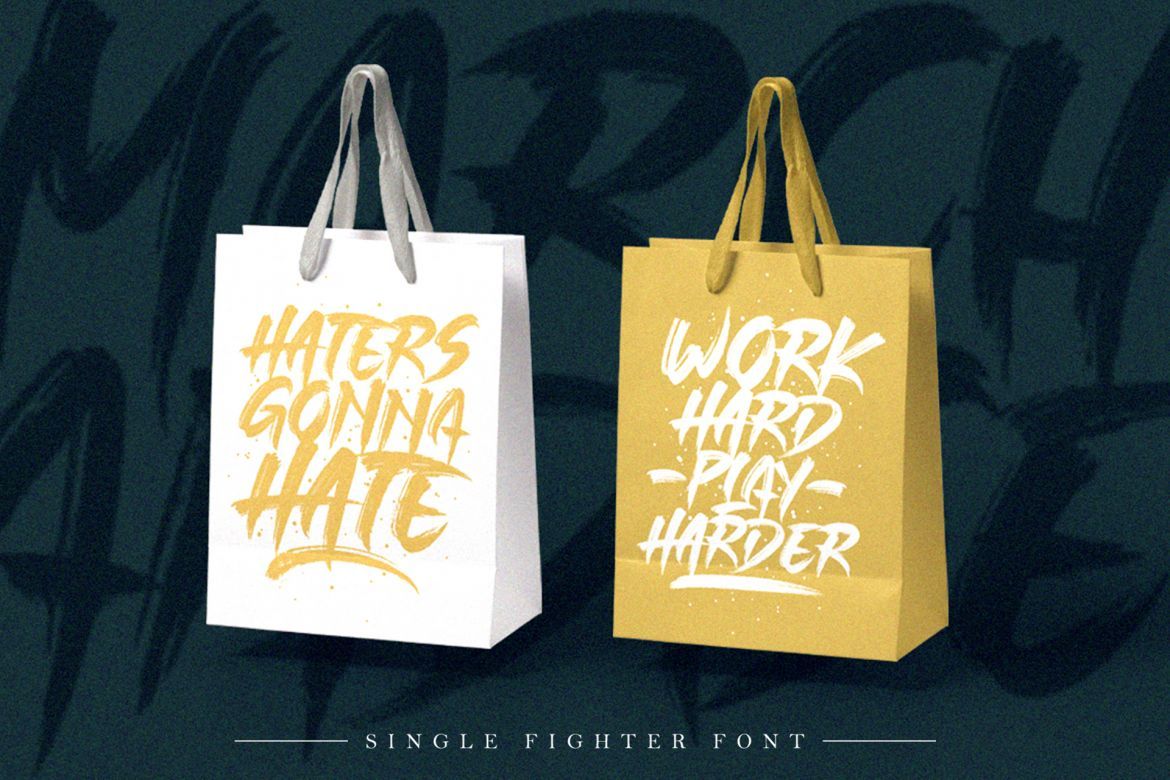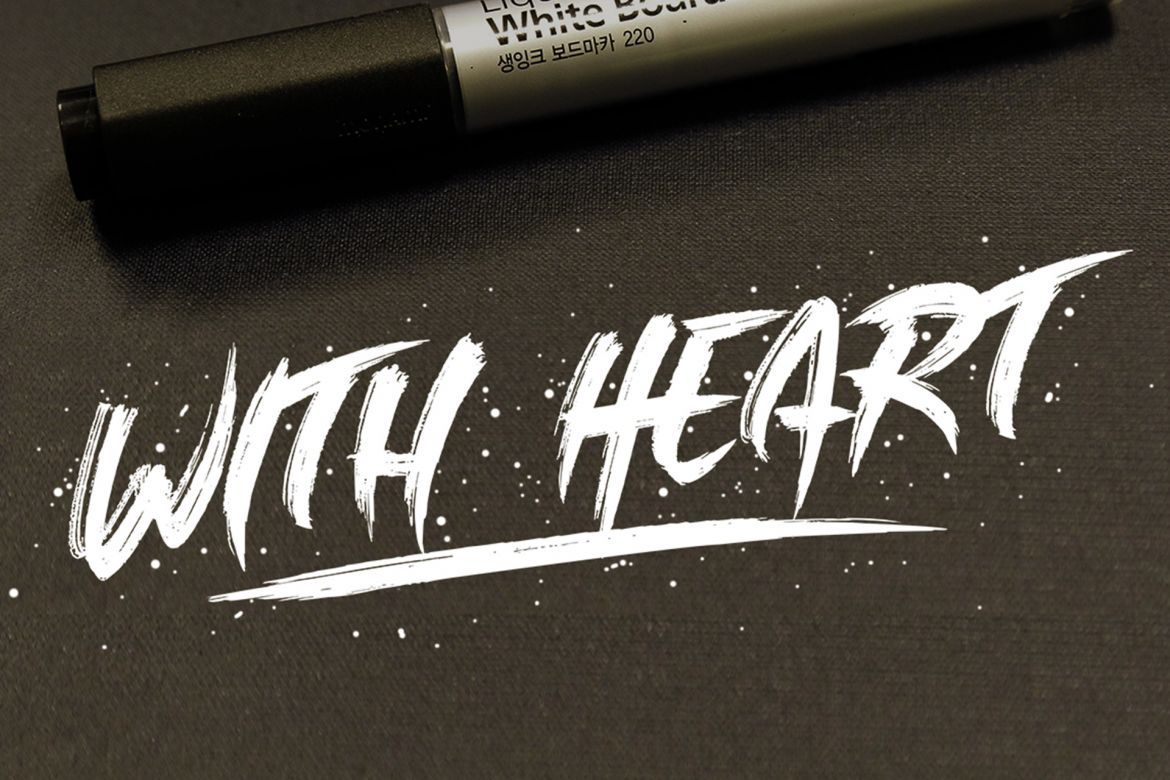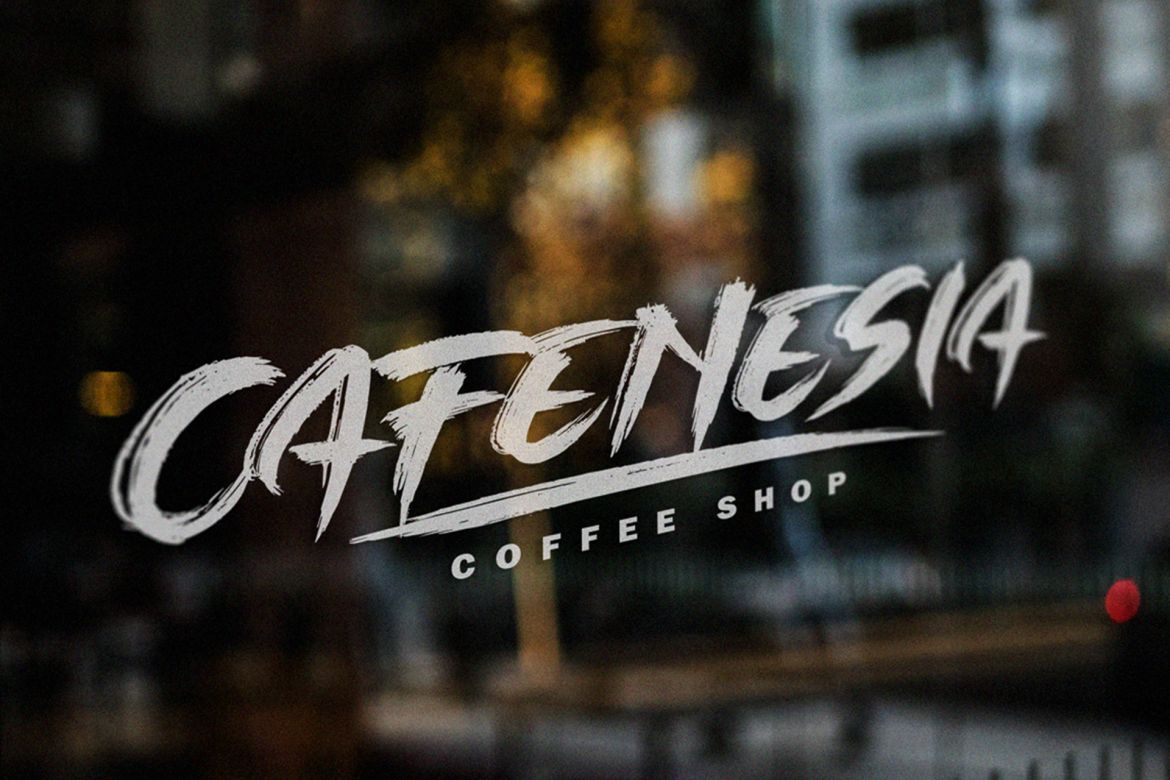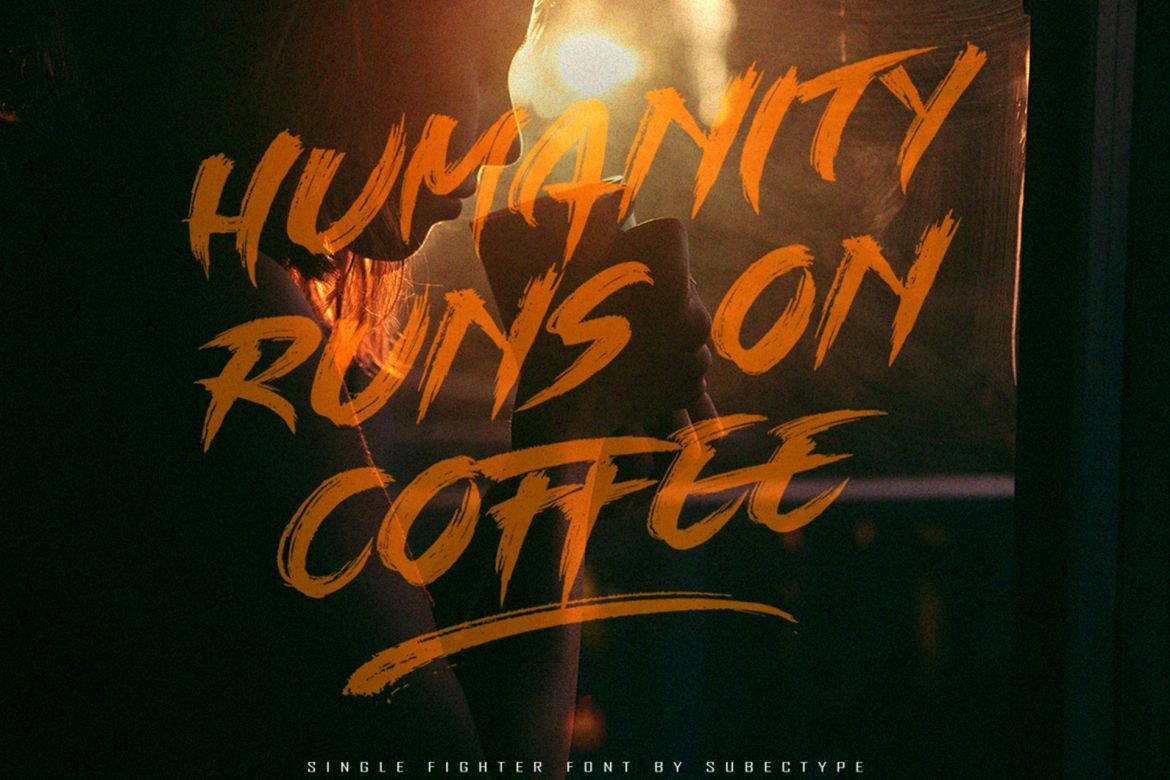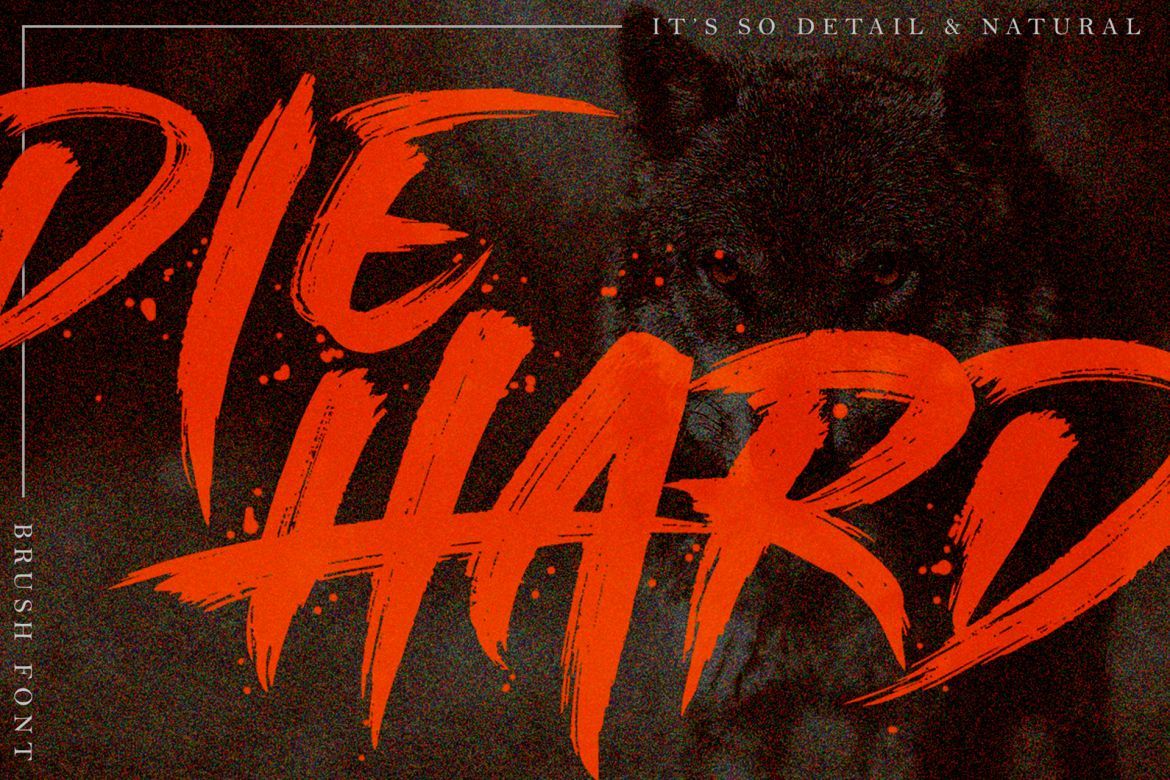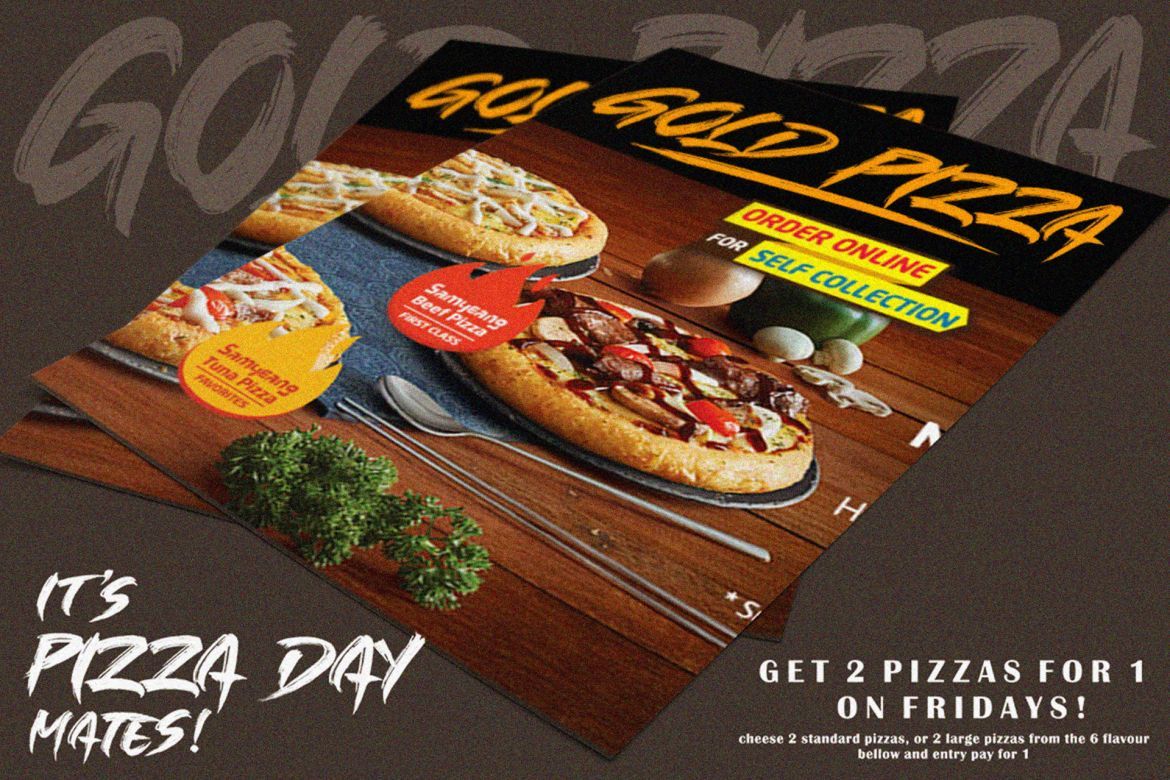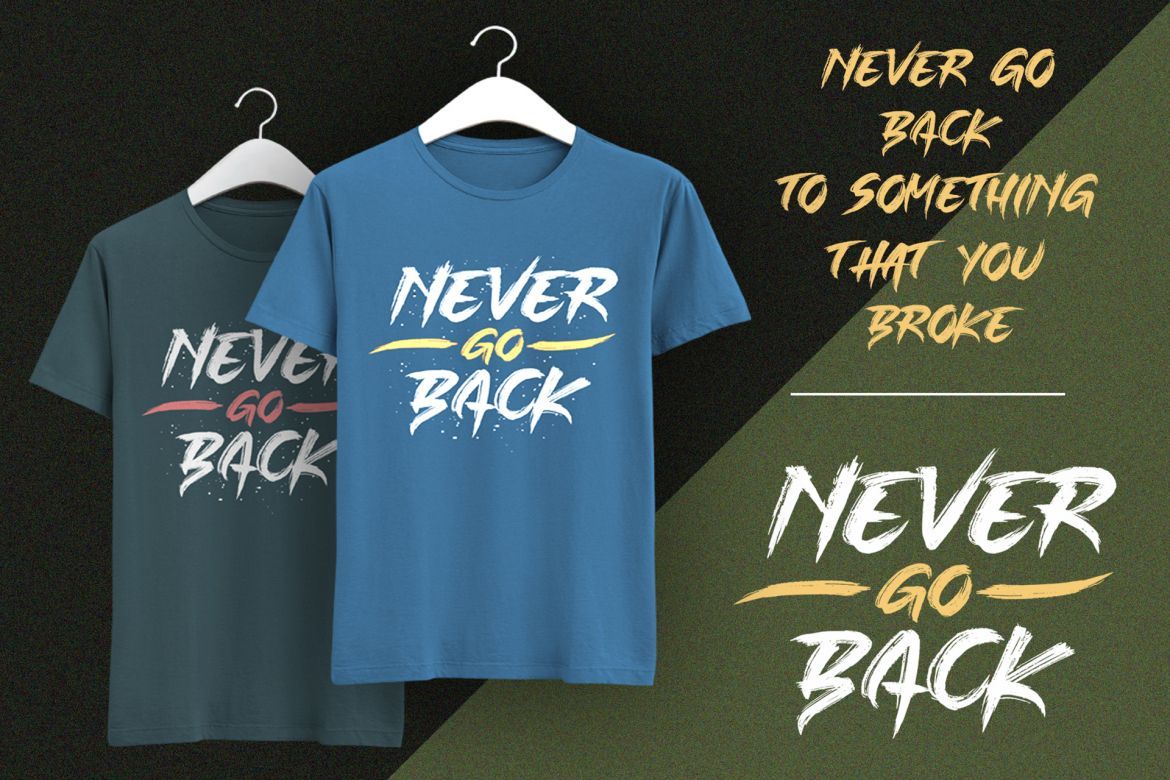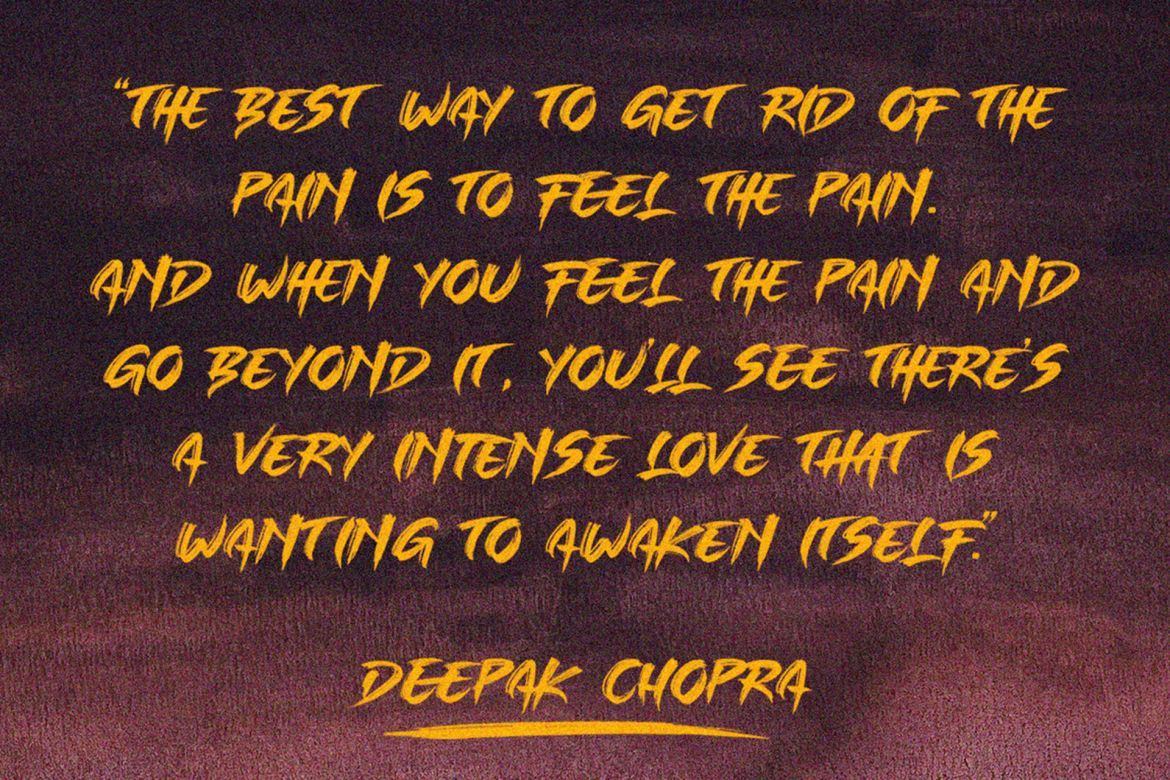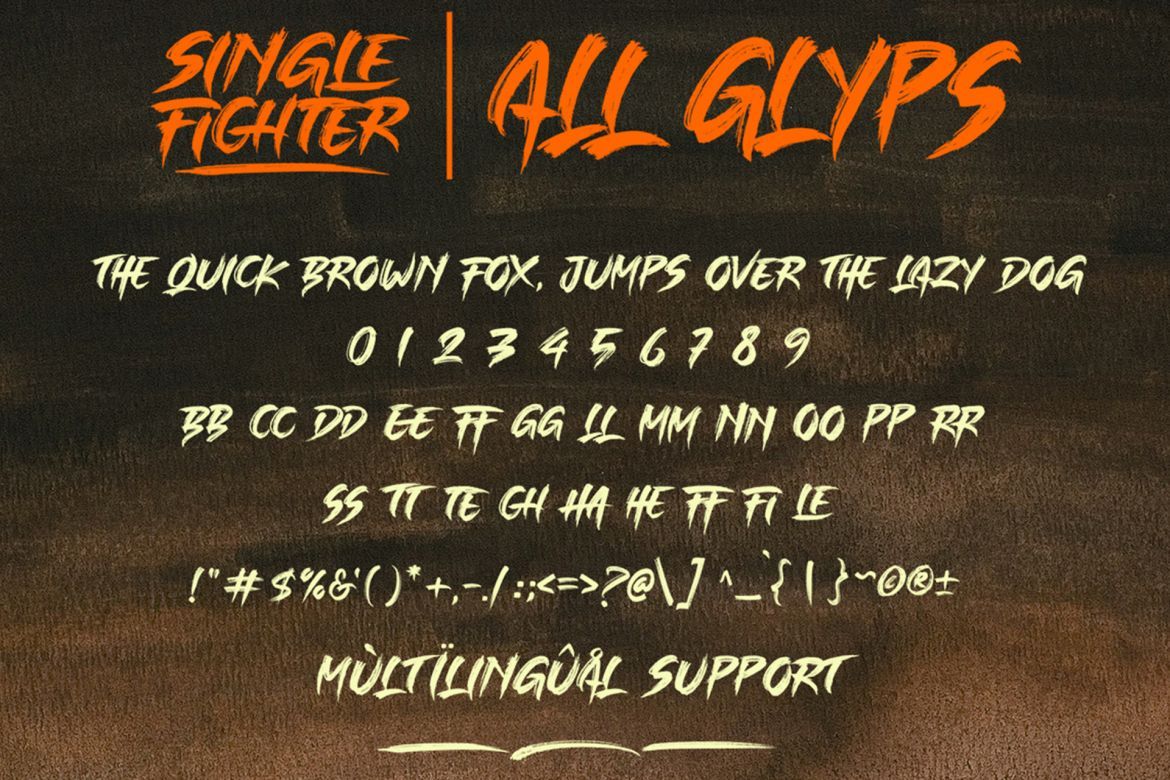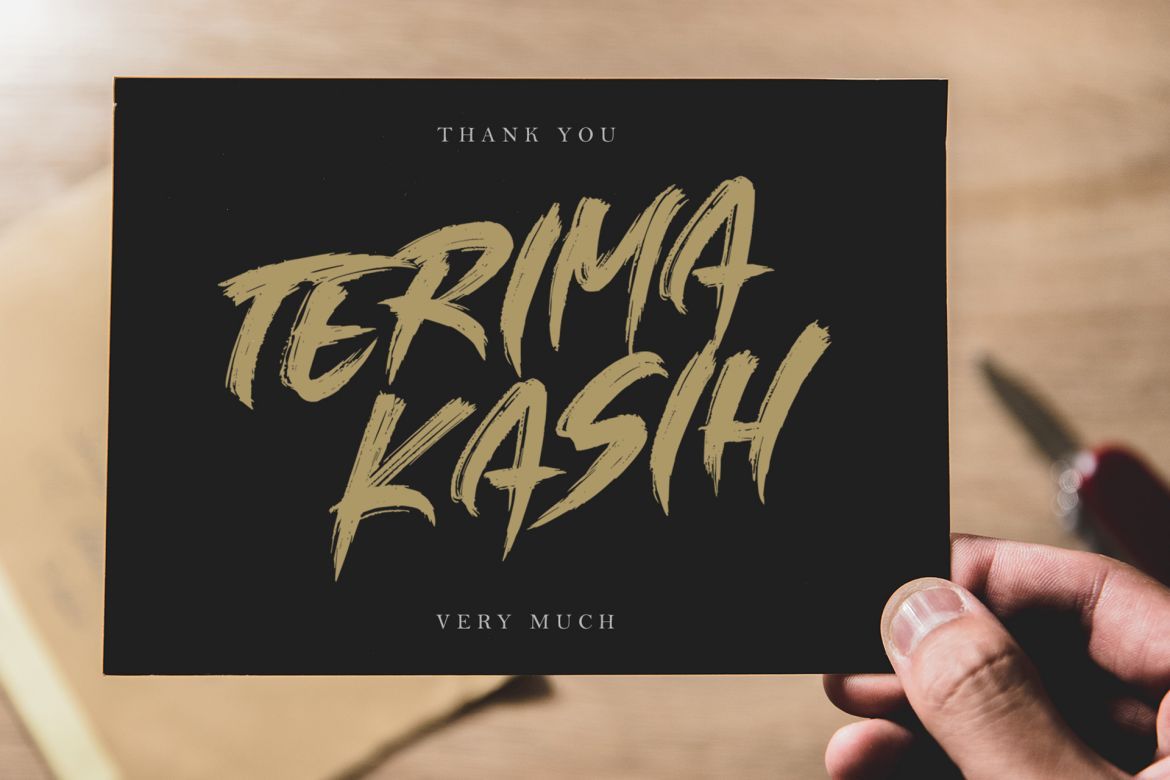
SIGLE FIGHTER Brush Font
Single Fighter is a cool and powerful typeface with a powerful feel. It will add a powerful vibe to any design project.
• it's so natural brush font
• much ligatures